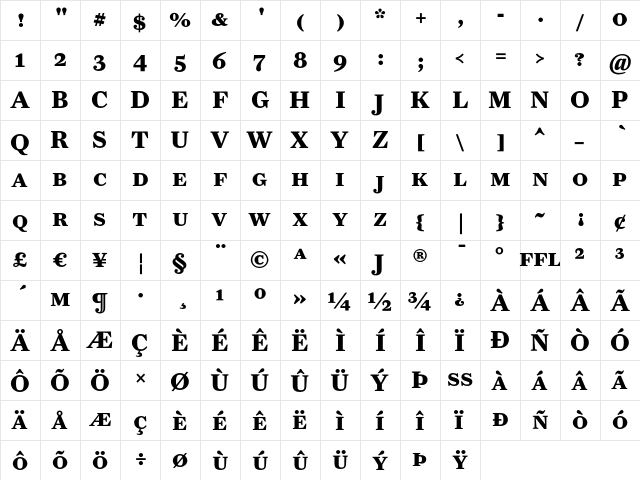
FarnhamText-BoldSC Regular Font Preview
FarnhamText-BoldSC Regular
FarnhamText-BoldSC Regular Font Details
Design Context for FarnhamText-BoldSC Typeface
FarnhamText-BoldSC offers clean, dependable letterforms without strong stylistic allegiance, making it a practical choice for designers who need flexibility. Its bold stroke weight gives it real presence on the page.